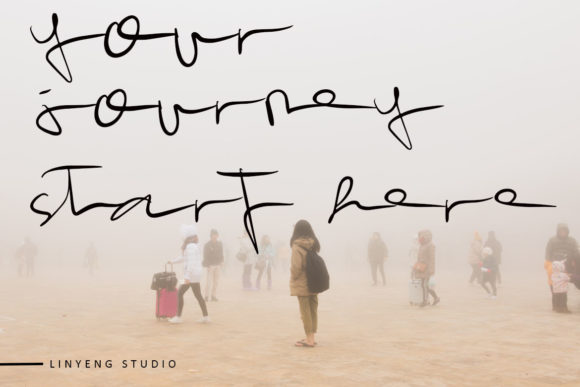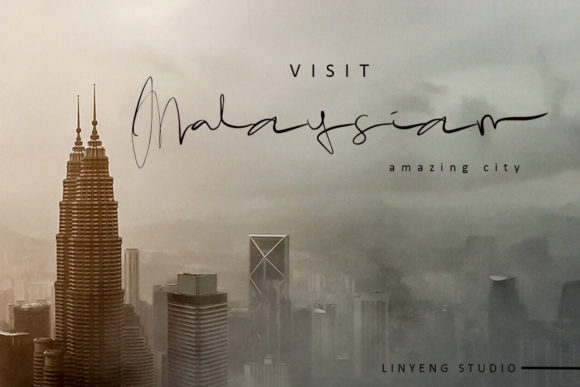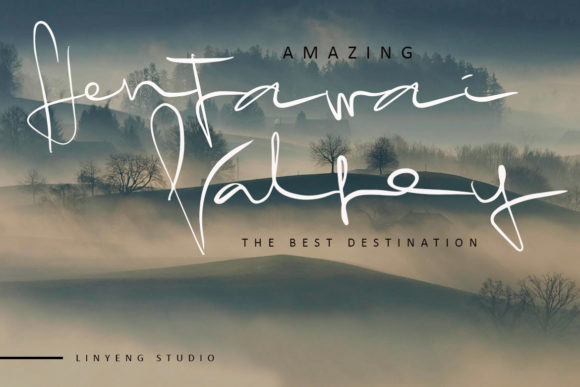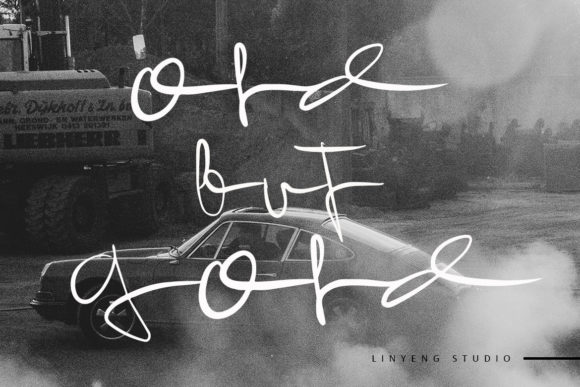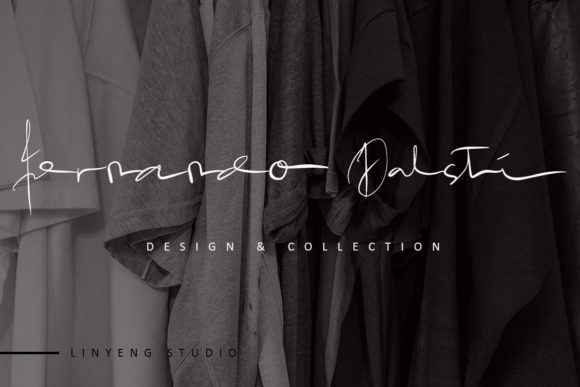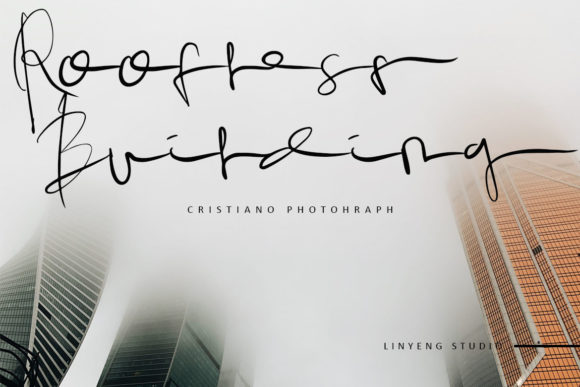
Adding a Touch of Whimsy with the Australion Font
Have you ever found yourself stuck in front of your computer, staring blankly at a design project, desperately searching for the perfect font to bring your vision to life? You know, that moment when you just can’t seem to shake off the feeling that something is missing?
That’s when I stumbled upon the Australion Font, a beautiful and elegant script font that adds a delicate flow and whimsical touch to any design project. With its unique characters that dance along the baseline, this font is perfect for creating a relaxed and chic atmosphere in your designs.
The Australion Font is not only aesthetically pleasing, but it’s also PUA encoded, making it easy to access all of the glyphs and swashes. Whether you’re a seasoned designer or just starting out, this font is a valuable addition to your toolkit, sure to elevate your designs and bring a touch of sophistication to your creations.
Australion Font Review
I recently had the chance to work with the Australion Font, and I must say it’s a mixed bag. On the one hand, here are some things that work well:
- ✨ The font’s unique blend of modern and classic elements makes it a great choice for those looking for a versatile font.
- ✨ Australion Font’s high legibility ensures that your content will be easily readable, even at smaller font sizes.
- ✨ The font’s subtle texture adds a nice touch of visual interest to any design.
- ⚠️ The font’s weight and width are not as extensive as some other fonts on the market, which may limit its usability in certain design situations.
- ⚠️ Australion Font may not be the best choice for designs that require a lot of bold or italic text.
- ⚠️ Some users may find the font’s texture too subtle, making it difficult to notice.
Overall, I think Australion Font is a solid choice for designers who are looking for a versatile and highly legible font. While it may not be perfect, its unique blend of modern and classic elements makes it a great addition to any design library.
Some tips to get the most out of Australion Font include using it for titles and headings, creating a cohesive brand identity, and pairing it with other fonts for contrast and interest.